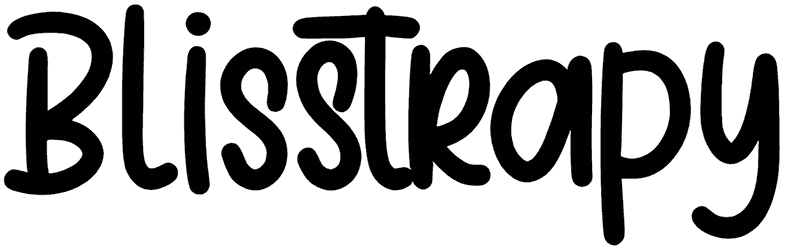
Blisstrapy Font
Just turn the spotlight on all your next projects, whether postcards, apparel designs, movie titles, or comic books, employing the sweet, warm, vividness of this kindergarten font that is not seen anywhere. Blisstrapy comes across with an intimate effect to stun any onlookers at first sight.